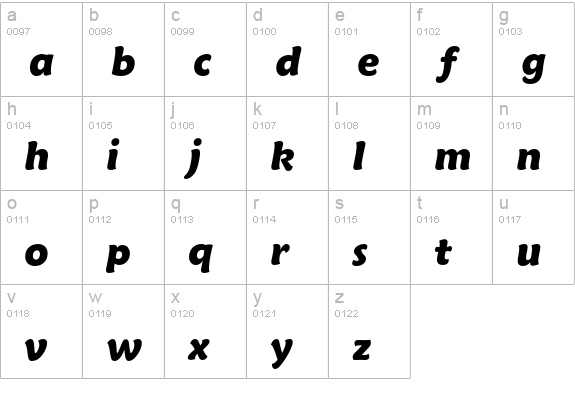
Maiandra Black Italic Font Details
Maiandra Black Italic is a maximum-weight, dramatic, italic variant in the Maiandra typeface family \xE2\x80\x94 well suited to maximum-impact headlines, posters, and packaging.
Maiandra Black Italic font is a classic and elegant typeface that exudes sophistication and refinement. With its sleek and slanted design, this font adds a touch of modernity and style to any project. The distinctive curves and bold strokes of Maiandra Black Italic create a sense of confidence and strength, making it perfect for headlines, logos, and branding. Its versatility allows it to be used in both formal and informal settings, effortlessly complementing any design. This font's free-flowing and italicized letterforms provide a sense of movement and flow, capturing attention and engaging the reader. It effortlessly combines traditional elements with a contemporary twist, resulting in a timeless and captivating typeface. Maiandra Black Italic is freely available to download at FontsMarket.com, where designers and typographers can easily access and utilize this stunning font. Its availability ensures that creators can effortlessly incorporate this font into their projects without any hassle. Whether you're designing a website, creating a poster, or crafting a unique branding identity, Maiandra Black Italic font is the perfect choice. Its bold and expressive nature will make a lasting impression, elevating your designs to new heights.